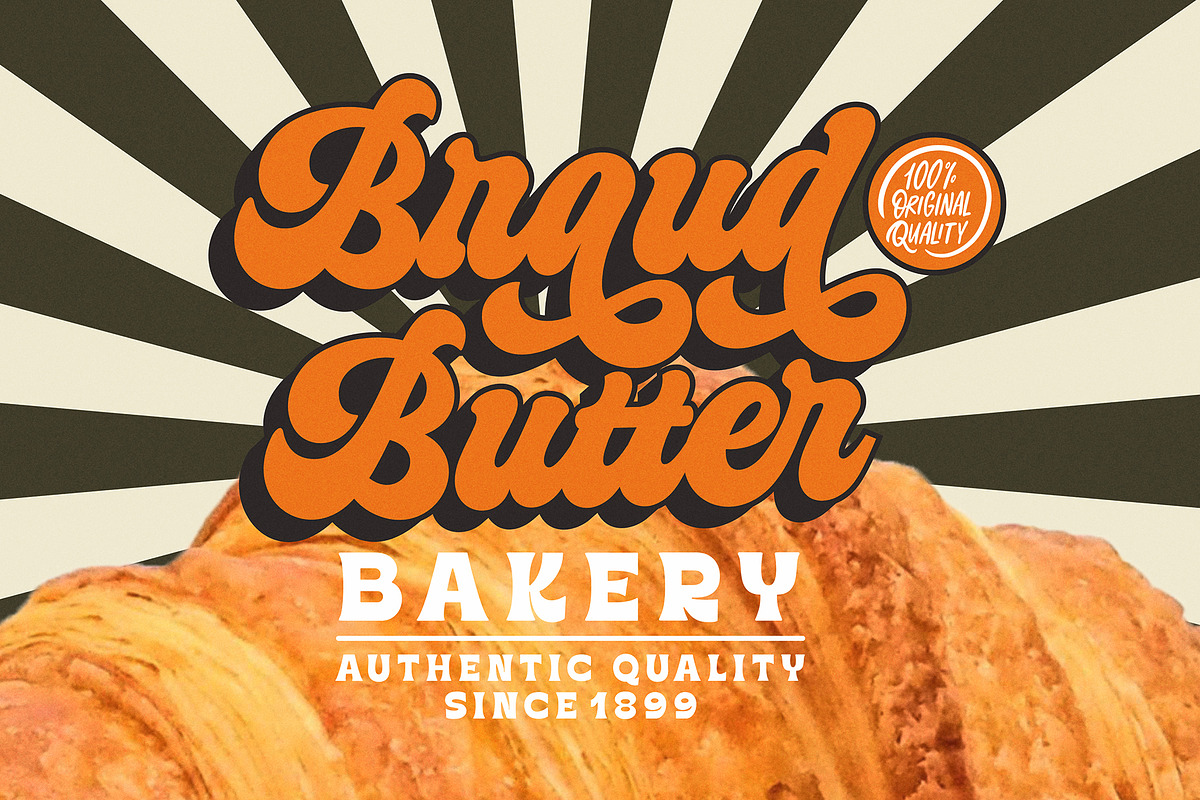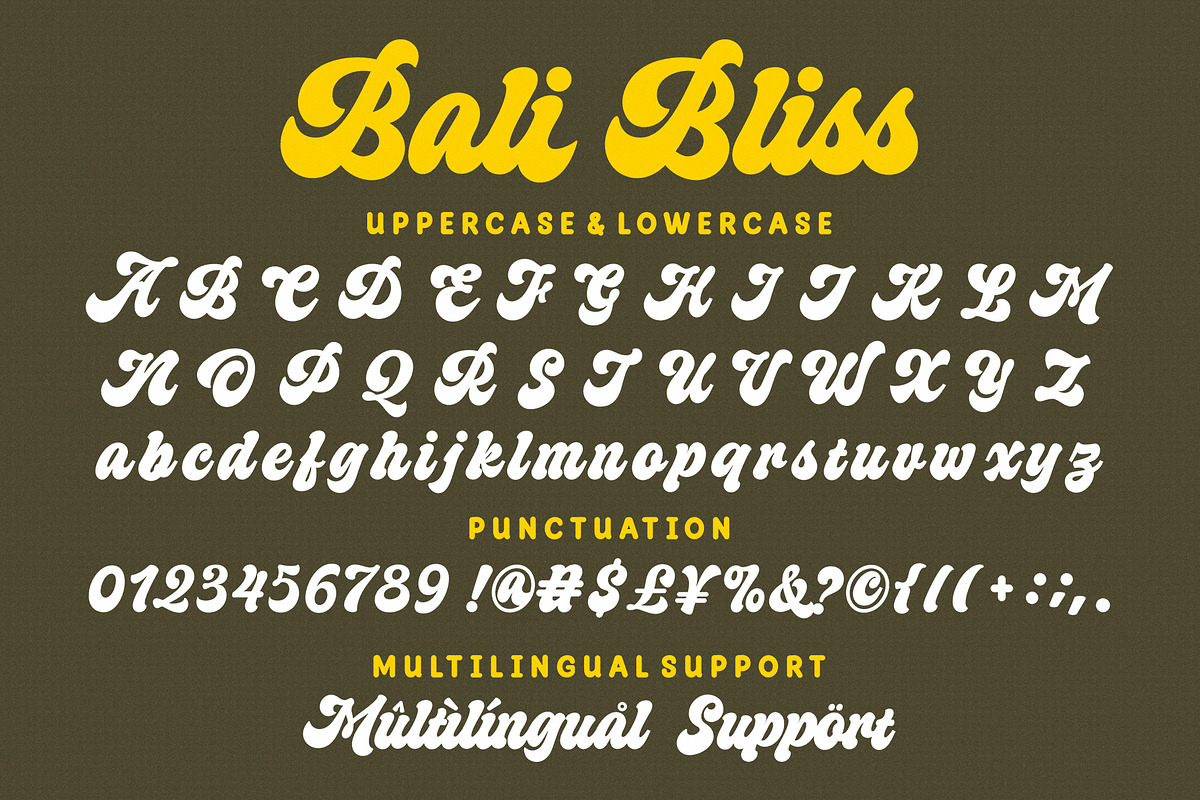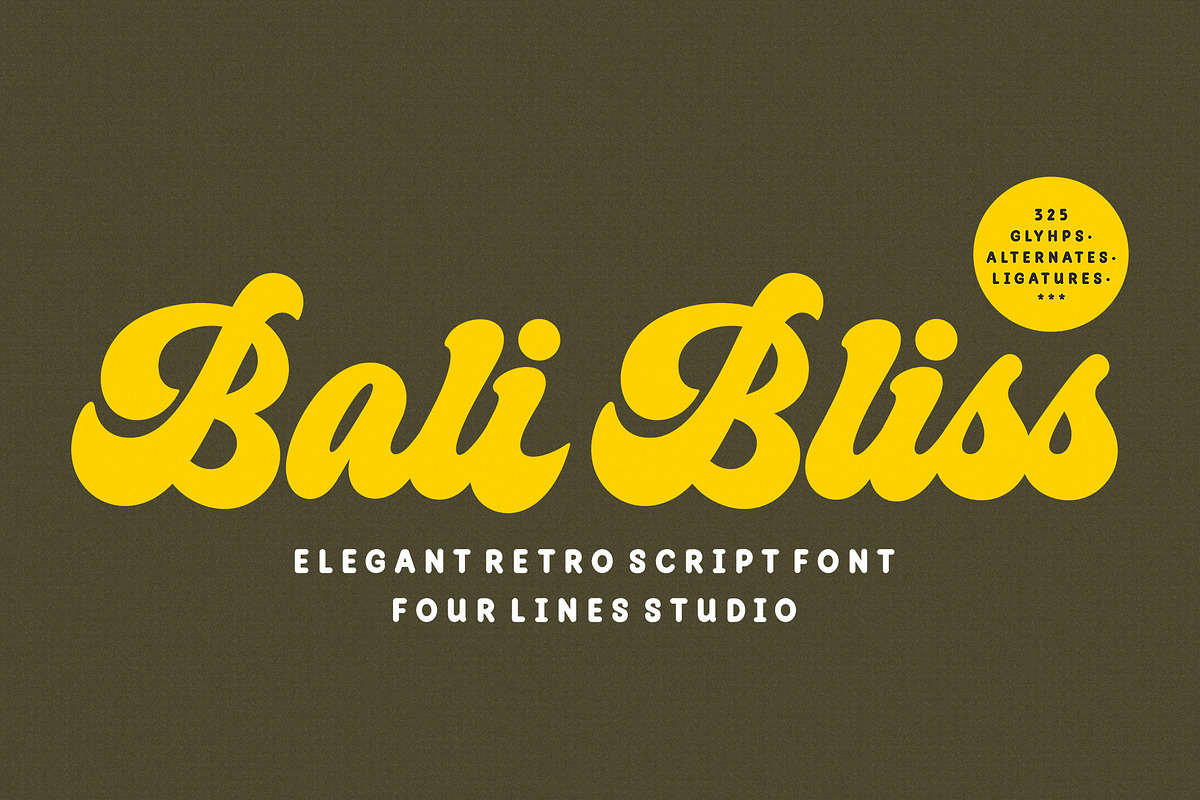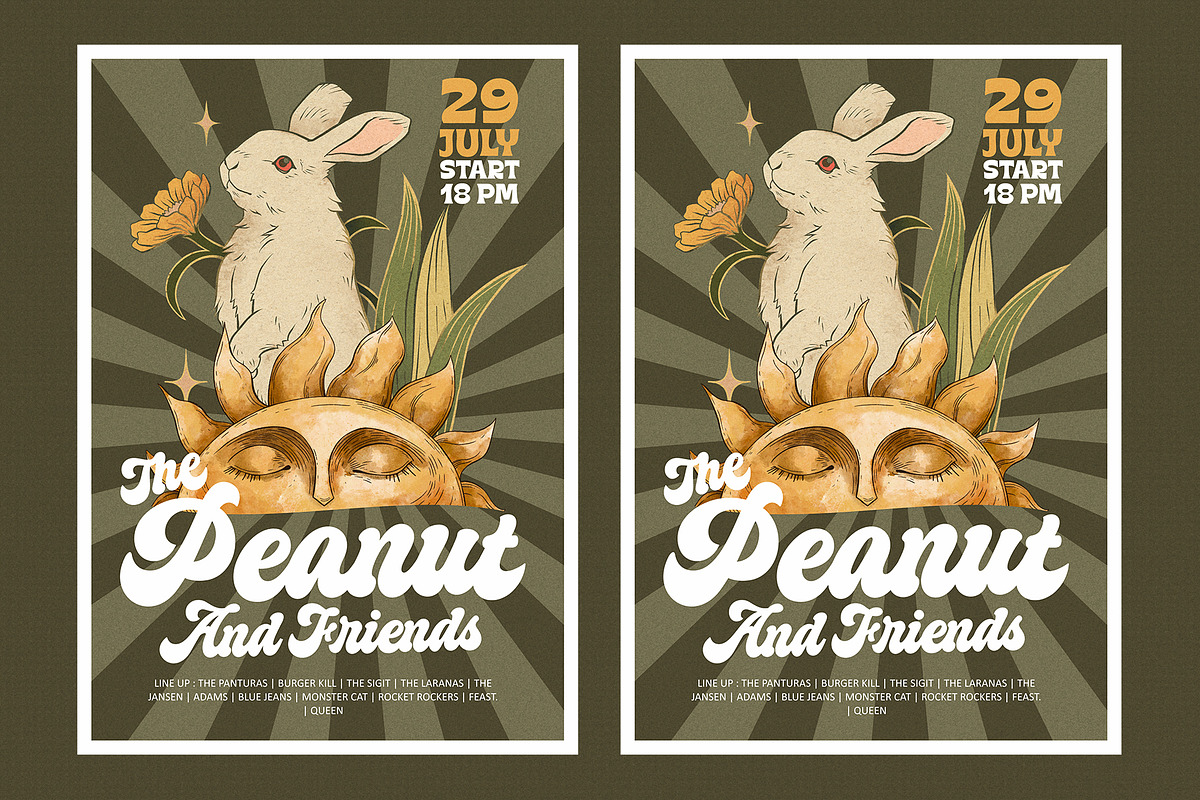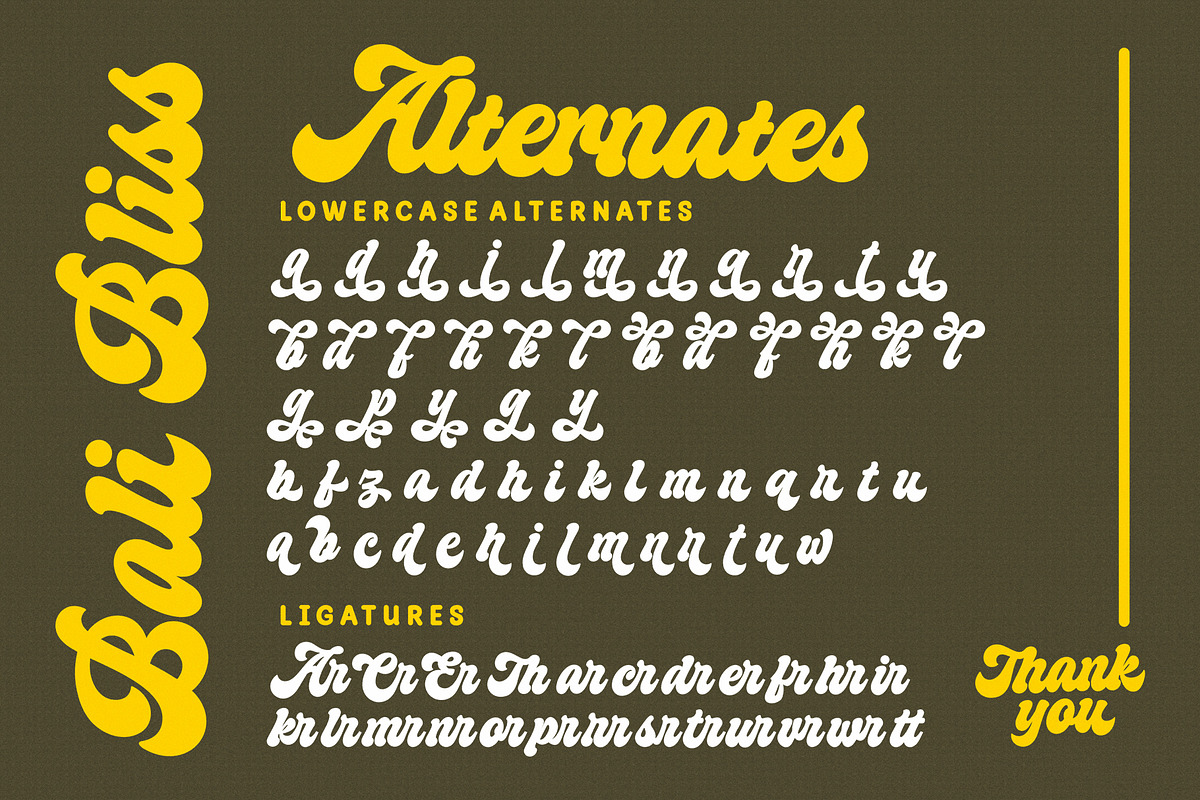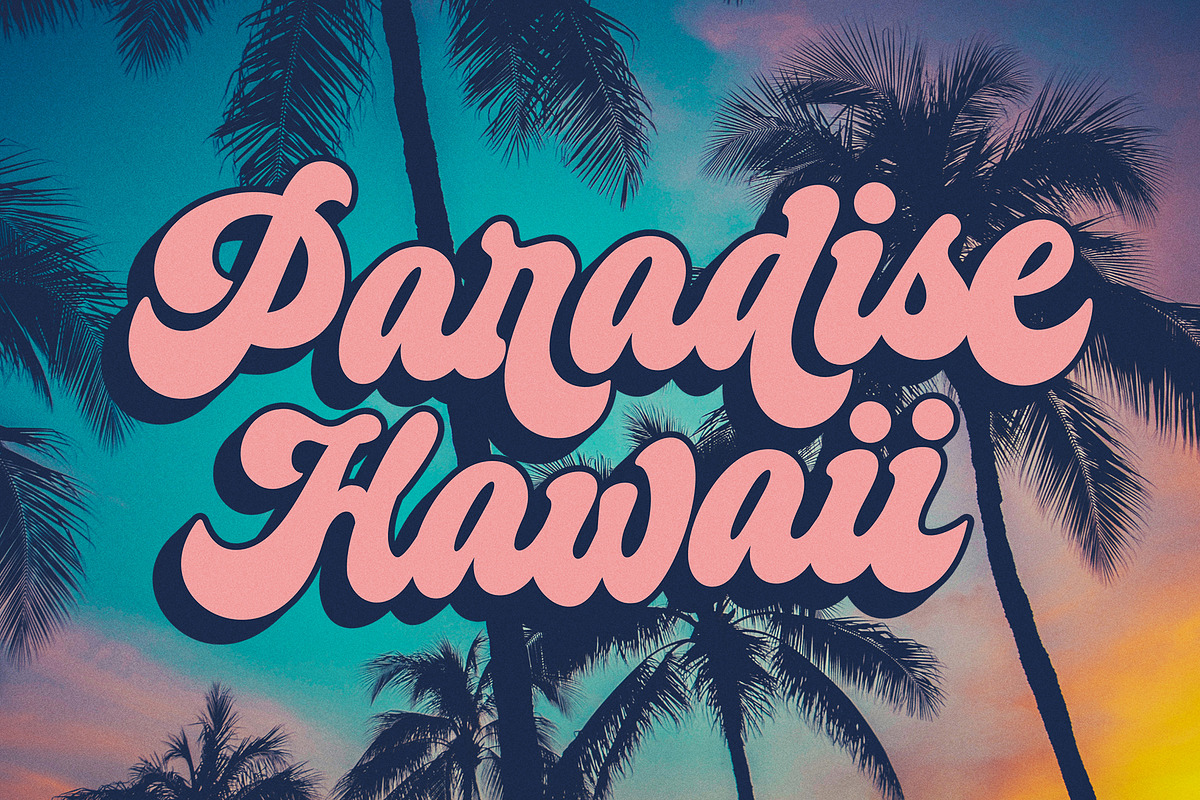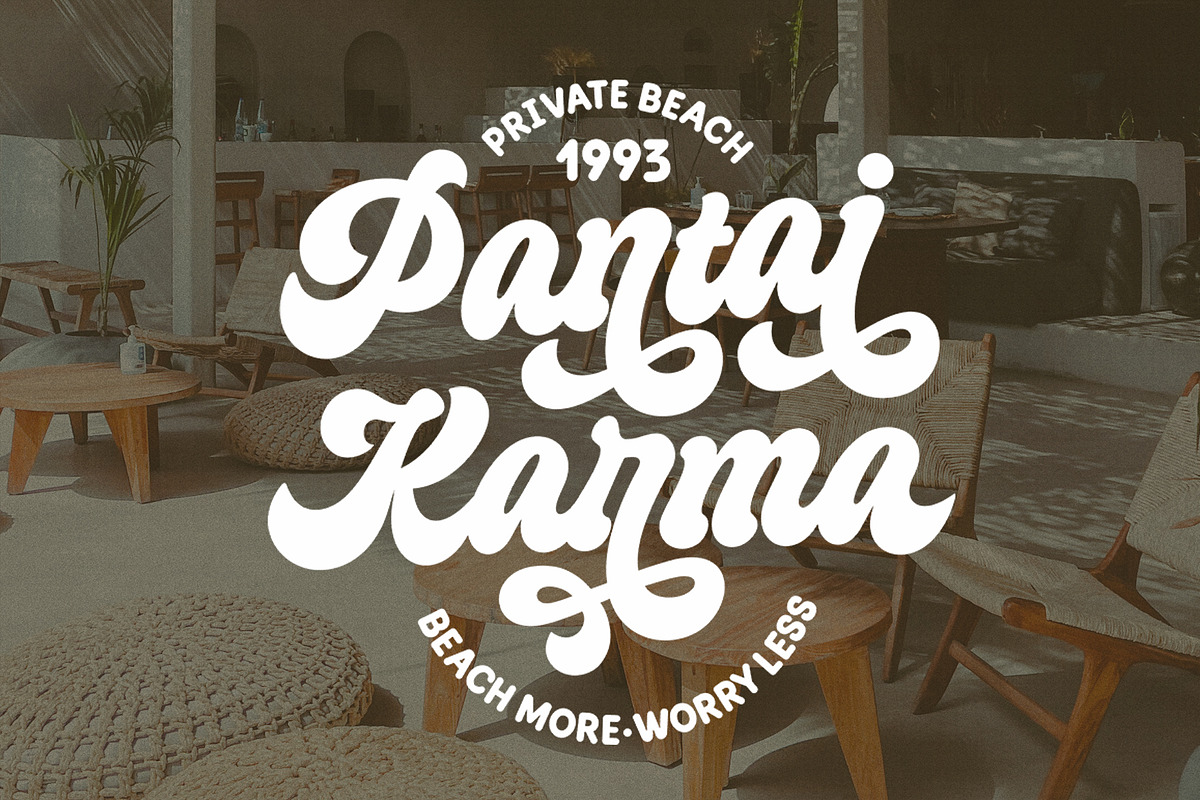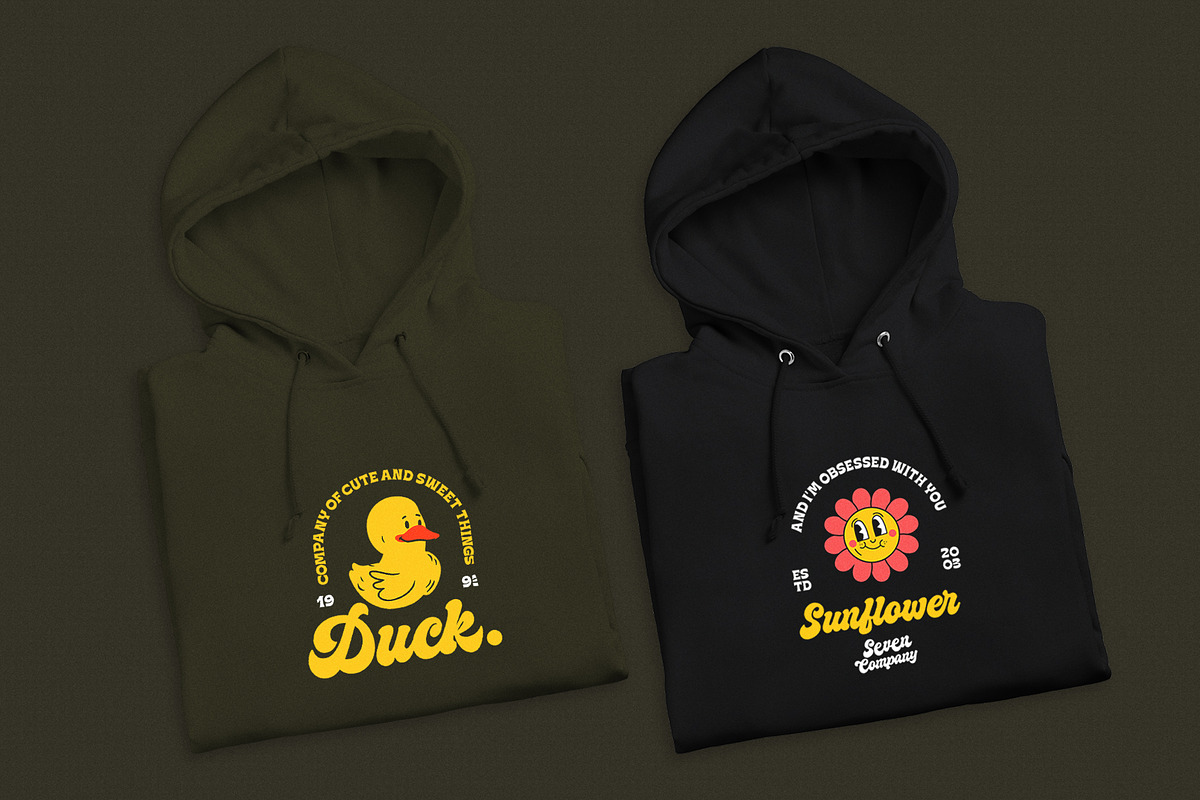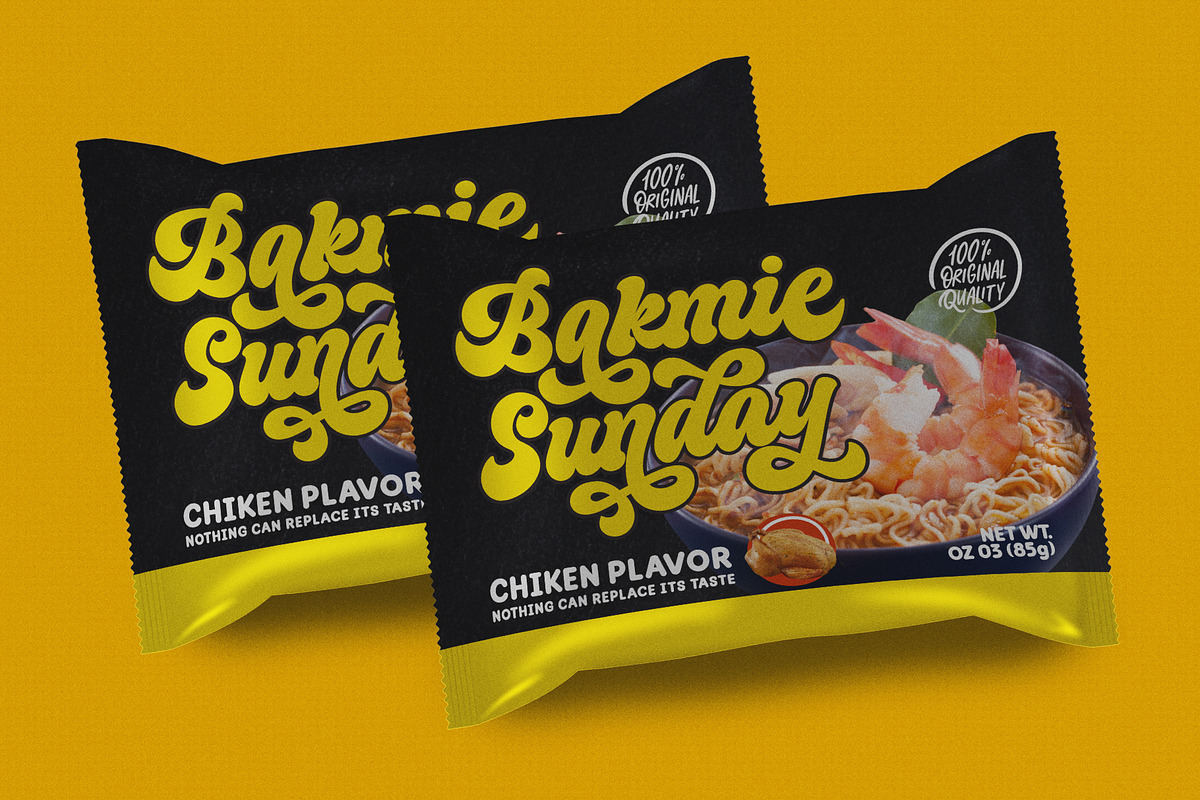
Bali Bliss - Retro Script Font
Step into the world of vintage charm and timeless grace with our "Bali Bliss" font! "Bali Bliss" is a script font that effortlessly channels the retro vibe, oozing with an irresistible charm that takes you back to a bygone era. Its retro-inspired design taps into the collective memory, making your designs not just beautiful but also deeply relatable.